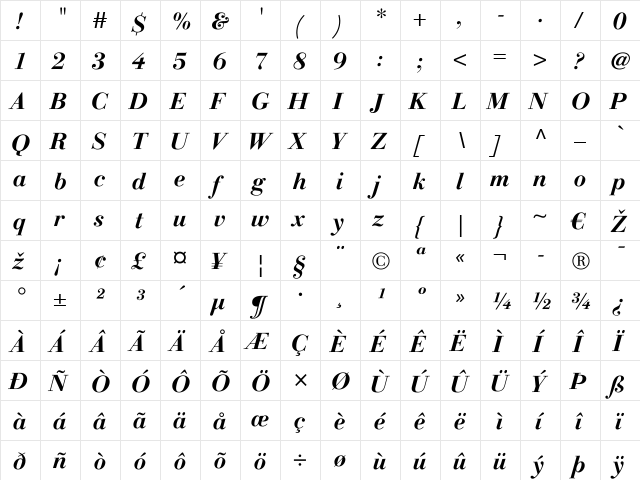
LTGianotten Light Bold Italic
Design Context for LTGianotten Light Typeface
LTGianotten Light offers clean, dependable letterforms without strong stylistic allegiance, making it a practical choice for designers who need flexibility. Its italic angle brings a sense of urgency and motion to the letterforms. The heavy weight commands attention and anchors typographic hierarchies.
Pro Tip: Use LTGianotten Light for emphasis, pull quotes, and subheadings where its slanted energy can add rhythm to the layout.